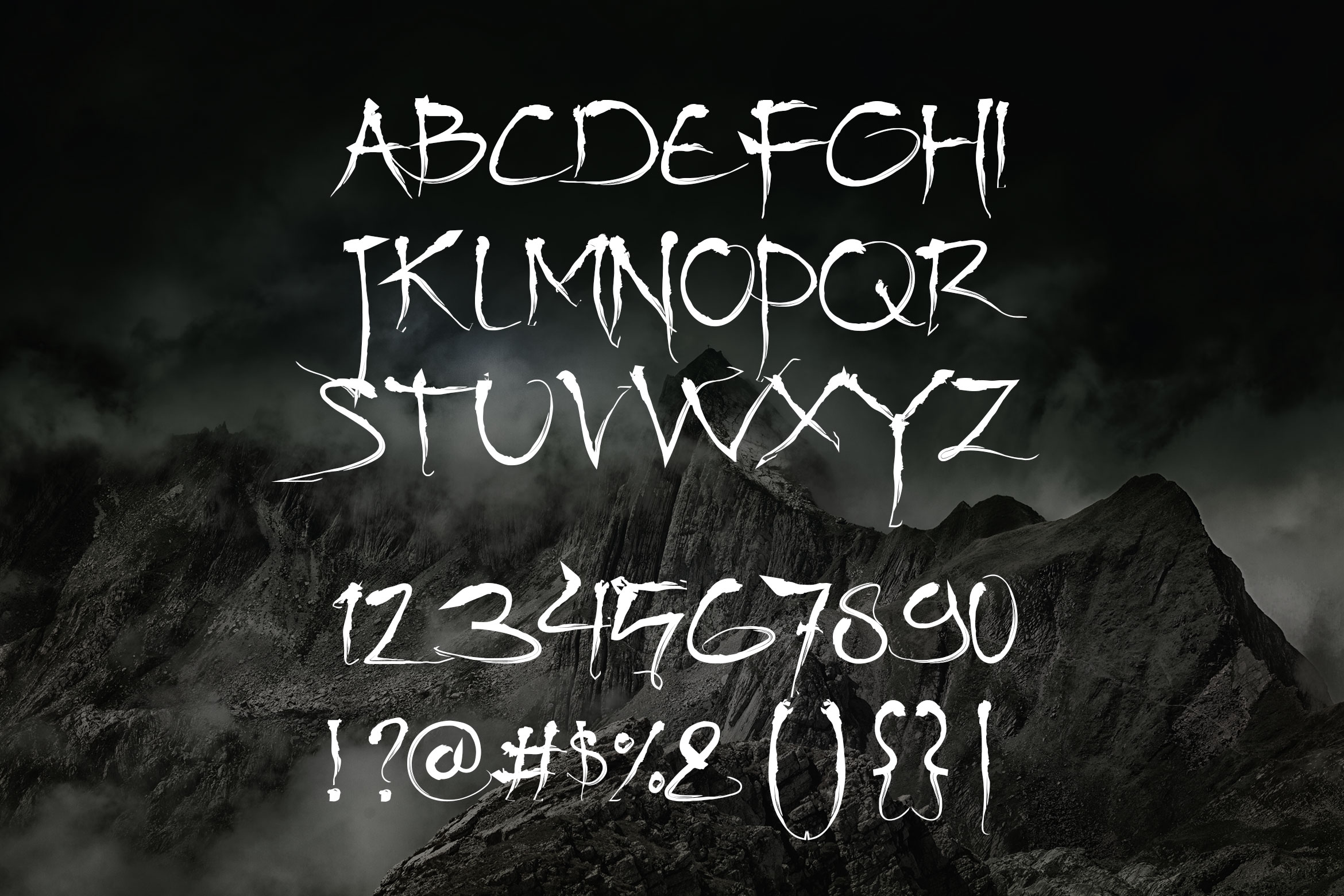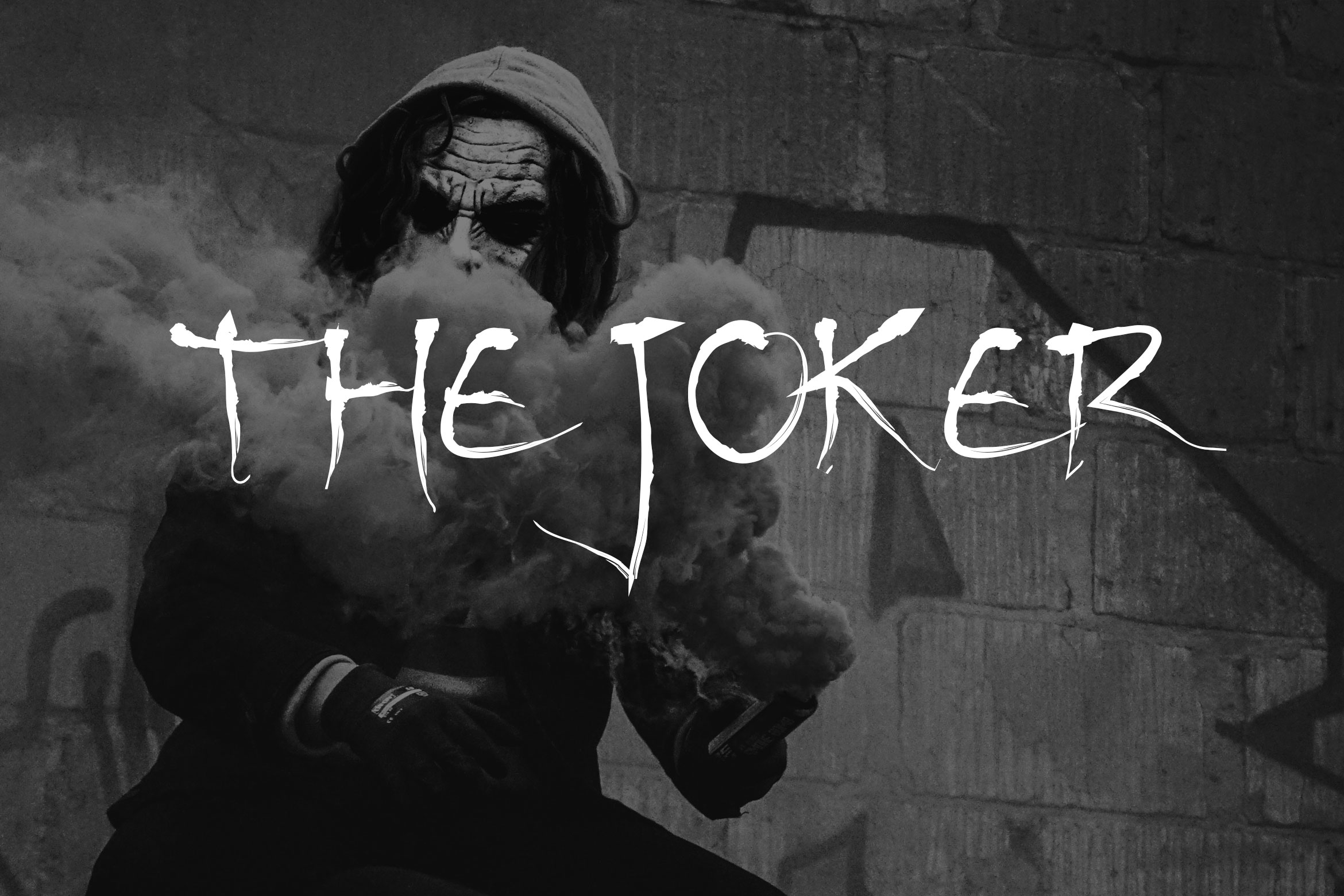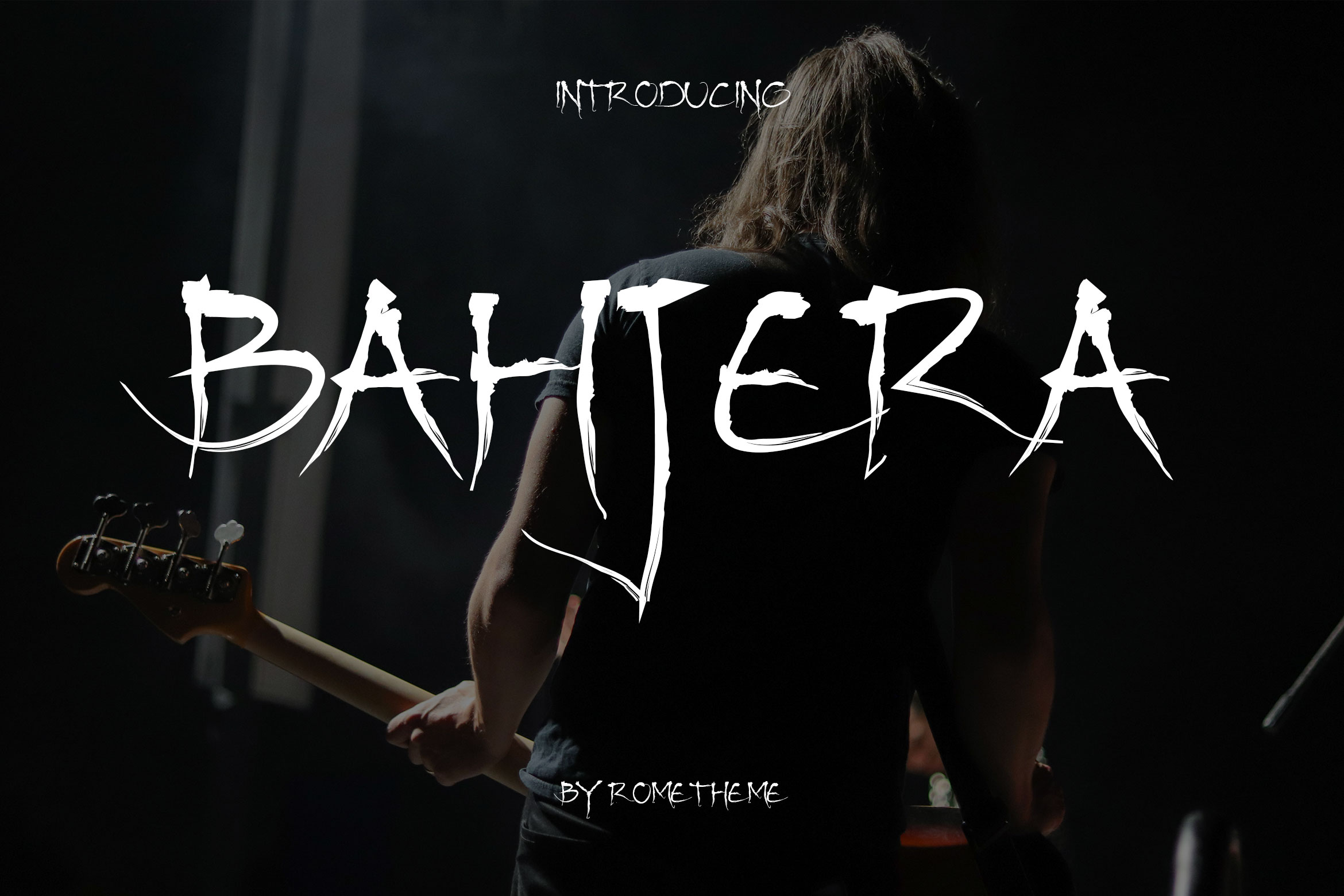
About Bahjera Font
Bahjera is a handdrawn font with an urban and catchy look. Readable and cool, this font is perfect for giving your branding projects and alternative and goth vibe.